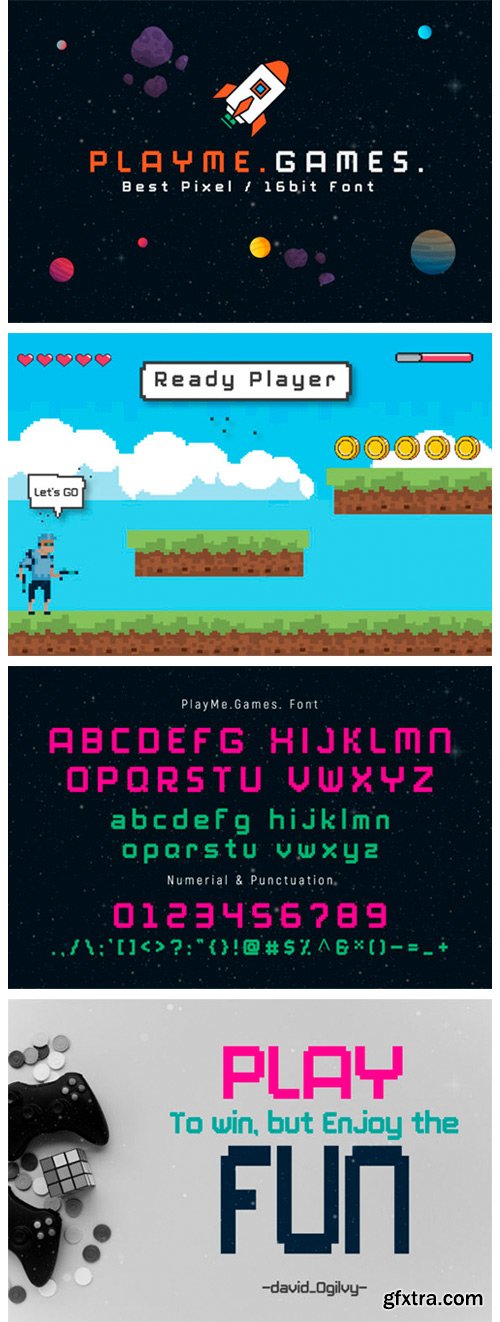
PlayMe.Games. Font
PlayMe.Games. is a pixel style font available in all caps and small caps. Its alphabet looks modern and minimalist evokes memories of early computer games.